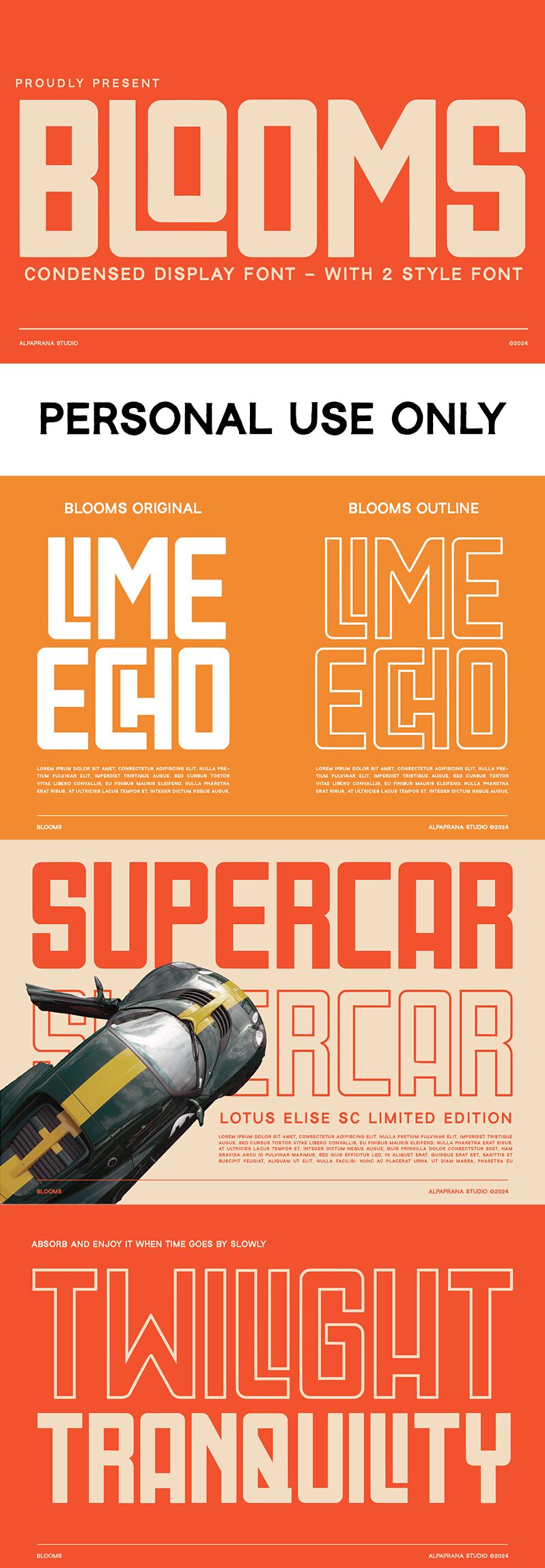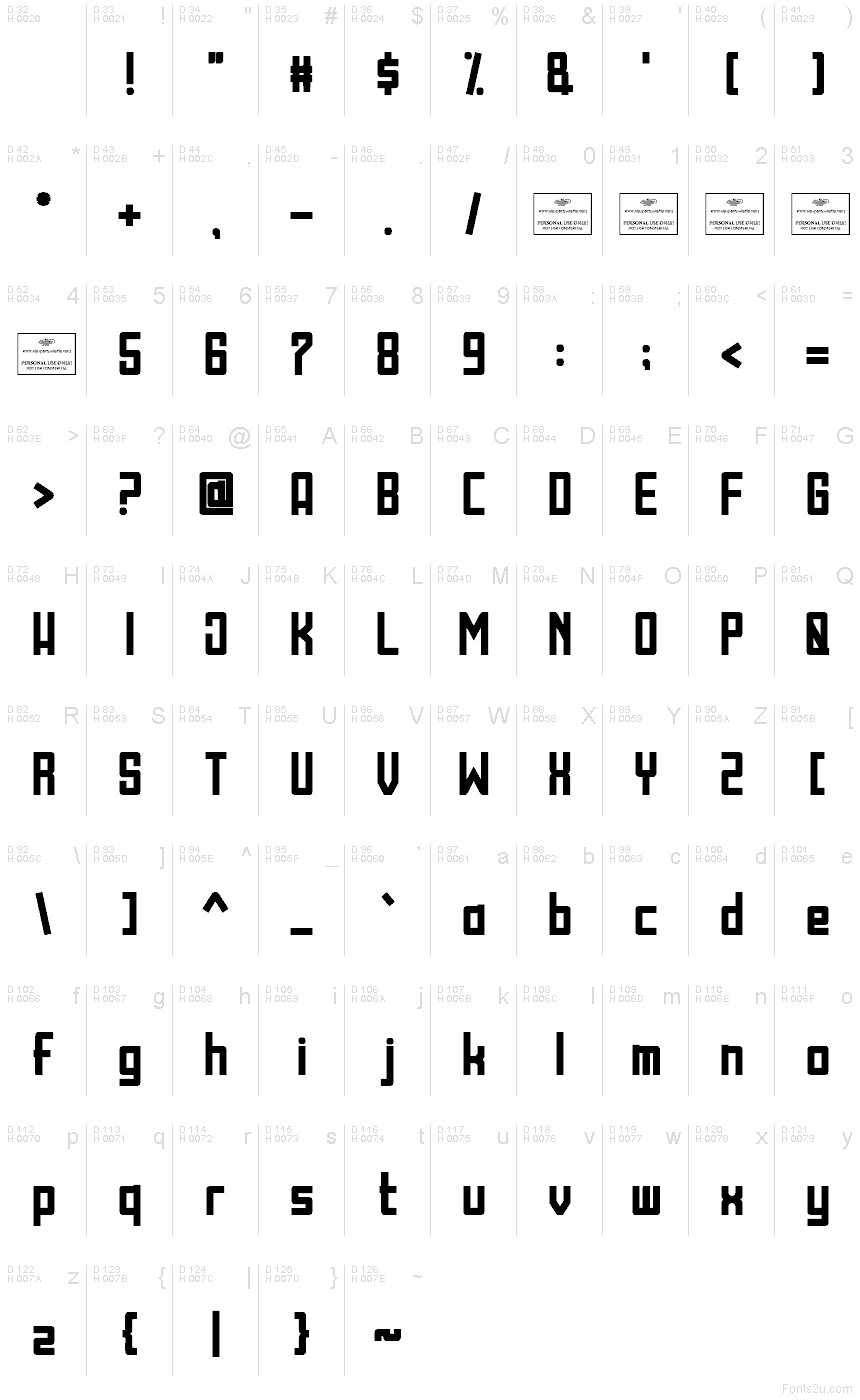
Blooms
Blooms font by Alpaprana Studio is a free modular display typeface. Its brick-built letterforms, squared bowls, and blocky rhythm snap together like tiles, creating bold, high-impact words that read instantly at a glance. The shapes feel industrial yet friendly, with crisp edges and boxy counters that give headlines a compact, pressurized punch.
This free font shines on esports logos, game titles, tech posters, packaging, signage, and bold album art. Using Blooms at large sizes amplifies its chunky geometry; add a hair of tracking when space is tight to keep forms breathing. For supporting copy, pair it with a clean grotesk or neo-sans to let the heavy blocks take center stage.